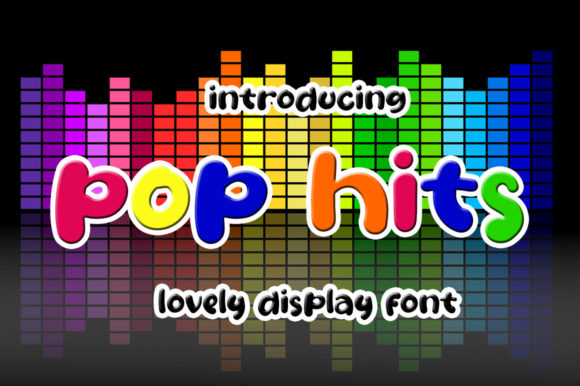
Introducing Pop Hits Font, the captivating display font that will transform your designs with its sweet and alluring charm. Crafted by the renowned Bill Kiss Studio, this font exudes a fresh, clean, and playful spirit, making it the perfect choice for a myriad of creations.
Whether you're crafting invitations for a special wedding or designing logos and branding for your business, Pop Hits Font's versatility knows no bounds. Its delightful curves and cheerful personality will add a touch of joy and whimsy to your projects.
Imagine your wedding invitations adorned with the beautiful letters of Pop Hits Font, each character flowing gracefully onto the page, creating an enchanting atmosphere for your special day. Or envision your brand's logo emboldened with its playful charm, attracting customers with its irresistible allure.
Pop Hits Font is not just a font; it's a gateway to expressing your creativity and leaving a lasting impression. Its versatility allows you to explore countless possibilities, from elegant and formal designs to vibrant and whimsical creations. The possibilities are endless!
So, why settle for ordinary fonts when you can elevate your designs with the extraordinary Pop Hits Font? Let its sweet and captivating charm ignite your imagination and create unforgettable visuals that will leave a lasting impact.